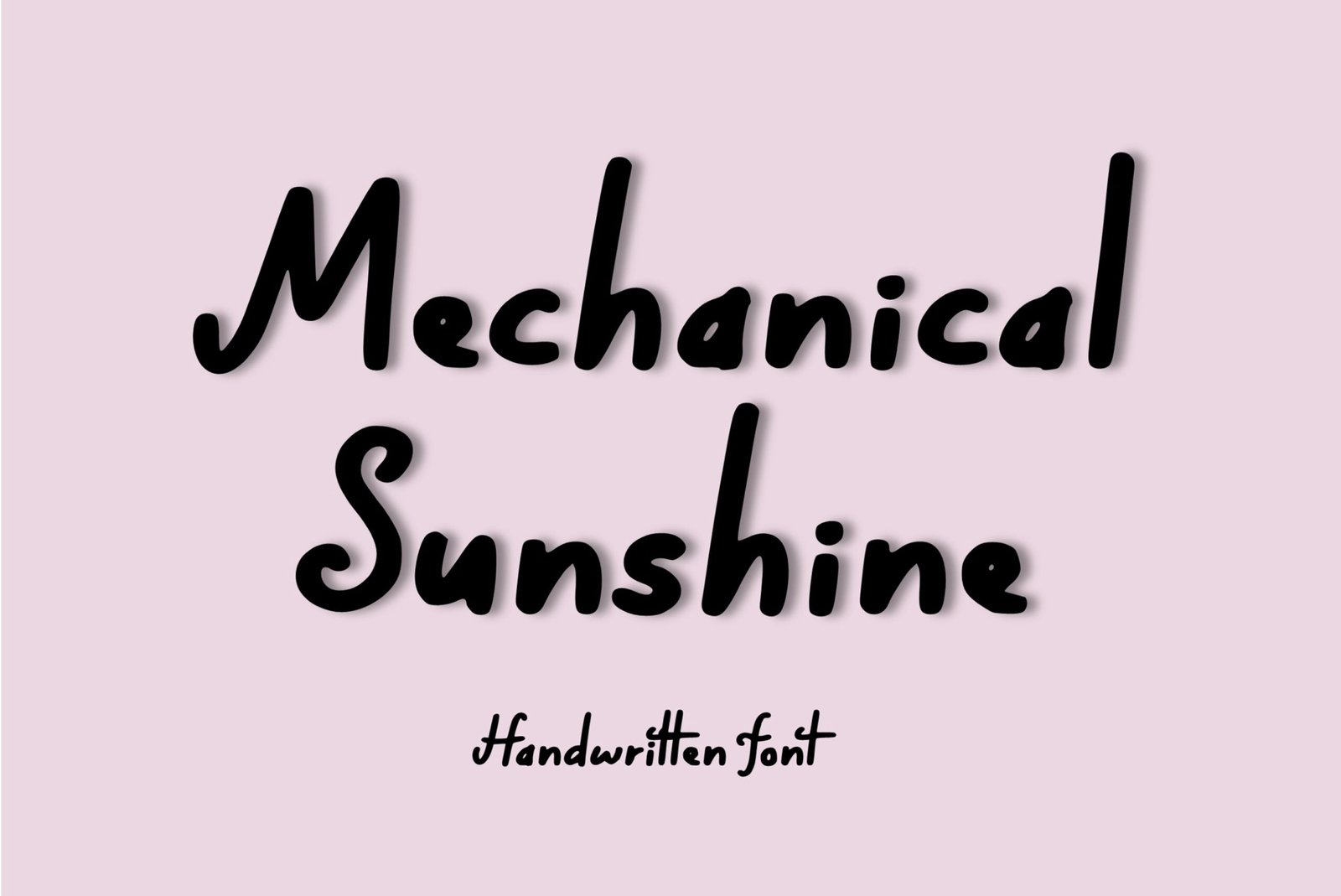
Mechanical Sunshine Font
Handwritten note taking font. “Mechanical Sunshine”. Perfect for goodnotes, note taking, advertising and display purposes, including banners, book covers, shirts, posters, logos and much more!
Font includes all upper and lowercase letters, numbers, characters, and punctuation.